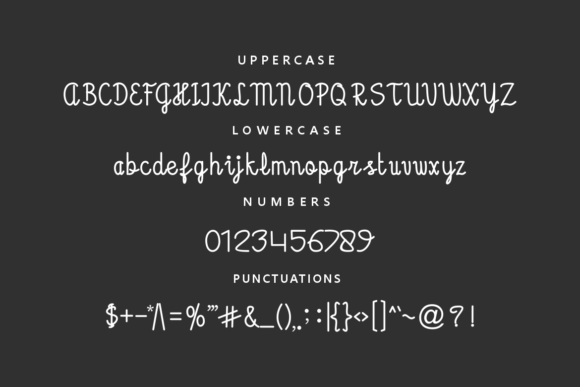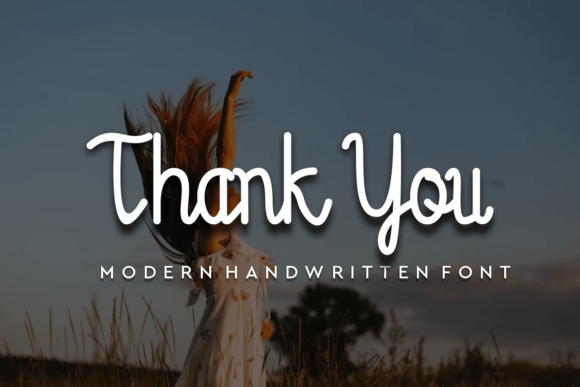
Cindoy Girl Font: Elevate Your Designs with Elegance and Class
In the world of typography, a font can make or break the aesthetic of a design. For those seeking a touch of elegance and sophistication, the Cindoy Girl Font is an excellent choice. This lovely and delicate script font is specifically crafted to provide a beautiful and refreshing look to various designs, making it a perfect fit for designers and crafters alike.
The Beauty of Cindoy Girl Font
Cindoy Girl Font is a script font that exudes elegance and class, making it ideal for projects that require a touch of sophistication. Its delicate strokes and curves create a beautiful, flowing script that is both visually appealing and easy to read. The font’s unique design ensures that it stands out from more traditional fonts, providing a fresh and modern look that is sure to capture the attention of your audience.
Whether you’re working on a branding project, creating wedding invitations, or designing a website, Cindoy Girl Font is a versatile choice that can be used in a variety of applications. Its elegant and refined appearance makes it suitable for:
- Web headers and titles
Why Choose Cindoy Girl Font?
With so many fonts available, why choose Cindoy Girl Font? Here are a few reasons why this font stands out:
- Unique Design: Cindoy Girl Font has a distinctive and eye-catching design that sets it apart from other fonts.
- Elegant and Refined: The font’s elegant and refined appearance makes it perfect for projects that require a touch of sophistication.
- Easy to Read: Despite its delicate design, Cindoy Girl Font is easy to read, making it suitable for body text and headings.
- Versatile: The font can be used in a variety of applications, from digital designs to print materials.
Tips for Using Cindoy Girl Font
To get the most out of Cindoy Girl Font, here are a few tips to keep in mind:
- Use it as a Headline Font: Cindoy Girl Font is perfect for headlines and titles, where its elegant design can shine.
- Pair it with a Sans-Serif Font: For body text, pair Cindoy Girl Font with a sans-serif font to create a nice contrast and improve readability.
- Experiment with Colors: Cindoy Girl Font looks great in a variety of colors, so don’t be afraid to experiment and find the perfect hue for your design.
In conclusion, Cindoy Girl Font is a beautiful and elegant script font that is perfect for designers and crafters looking to add a touch of sophistication to their designs. Its unique design, elegant appearance, and versatility make it a great choice for a variety of projects. Whether you’re working on a branding project, creating wedding invitations, or designing a website, Cindoy Girl Font is sure to elevate your designs and capture the attention of your audience.